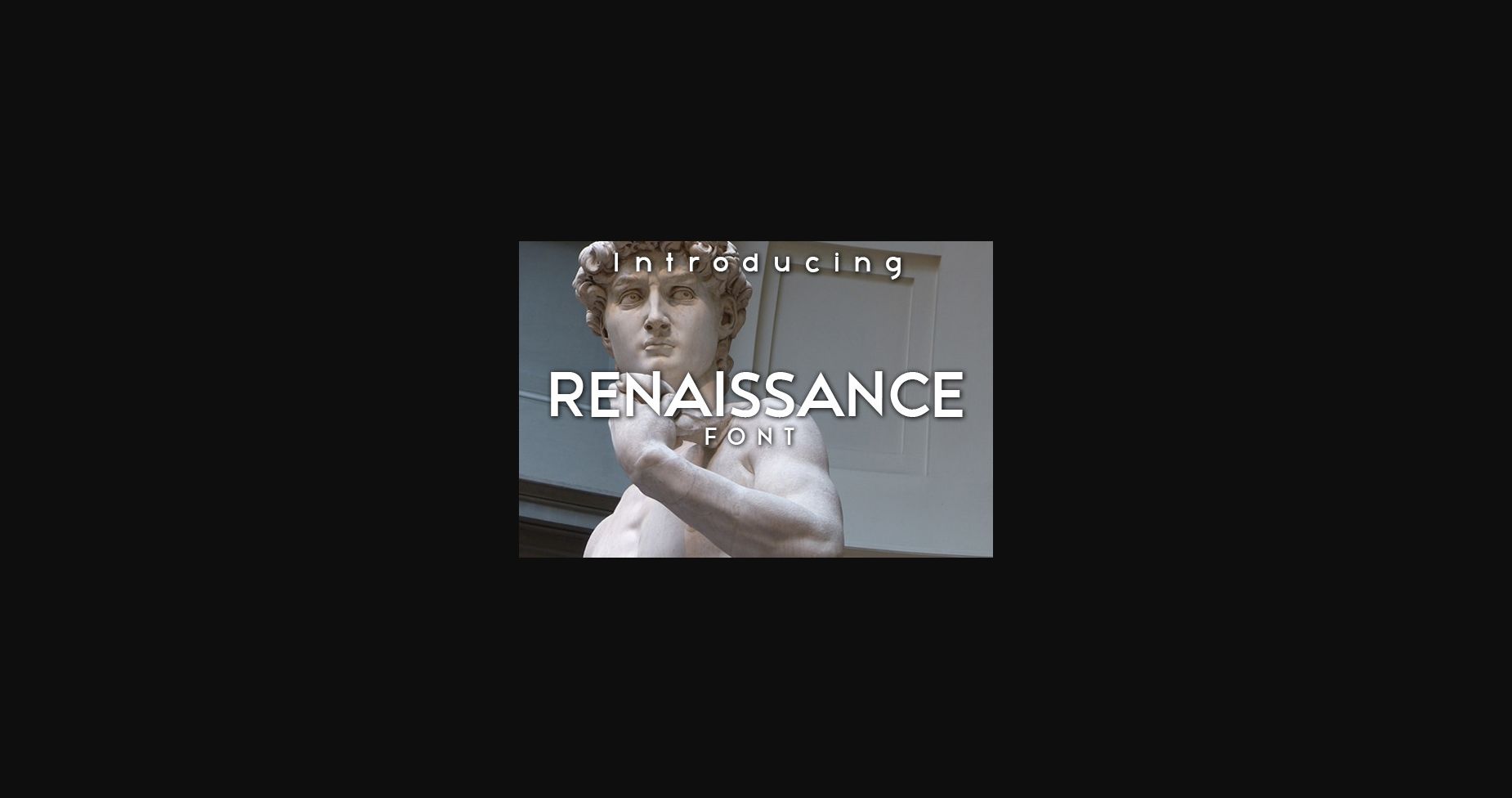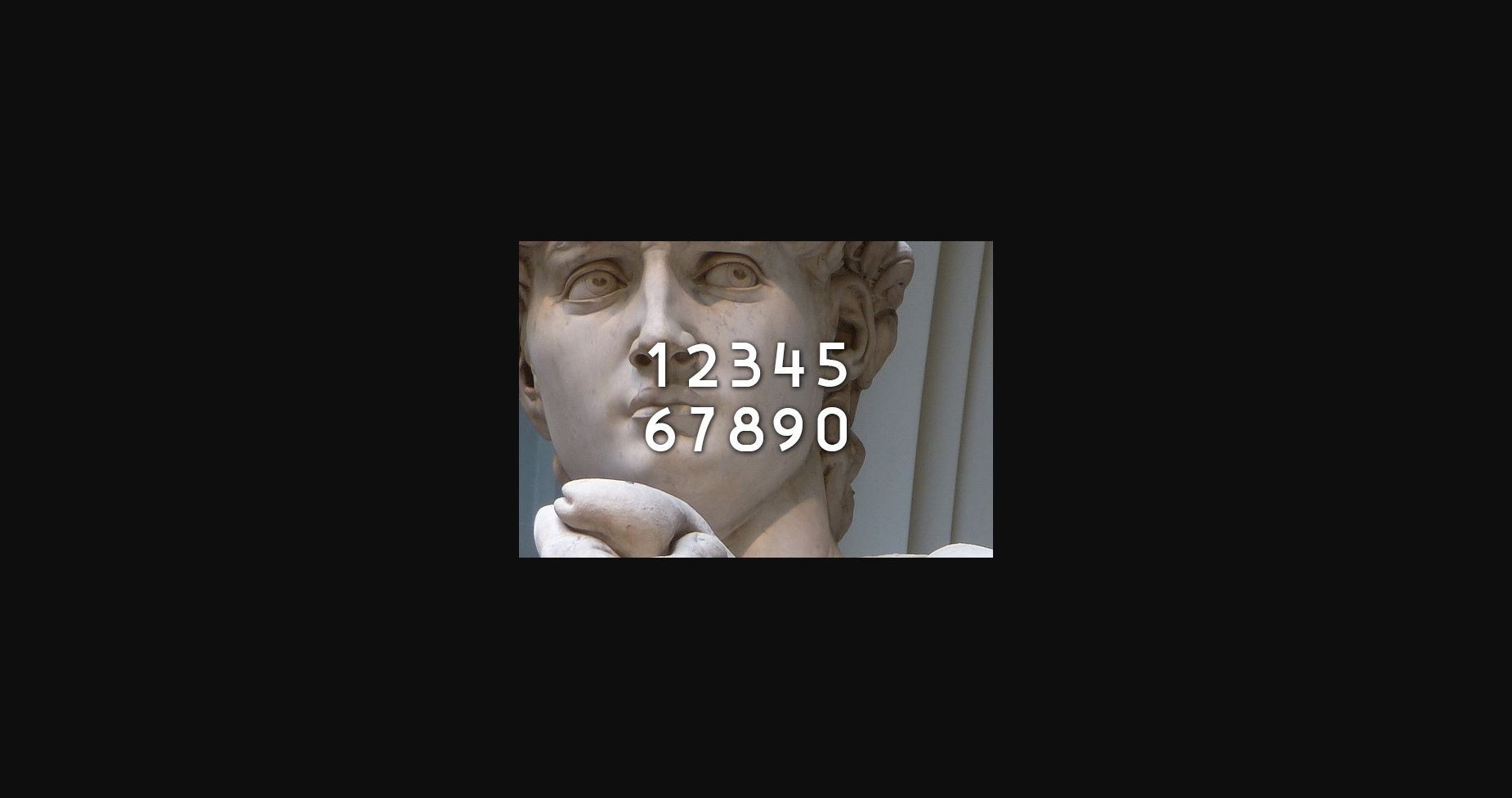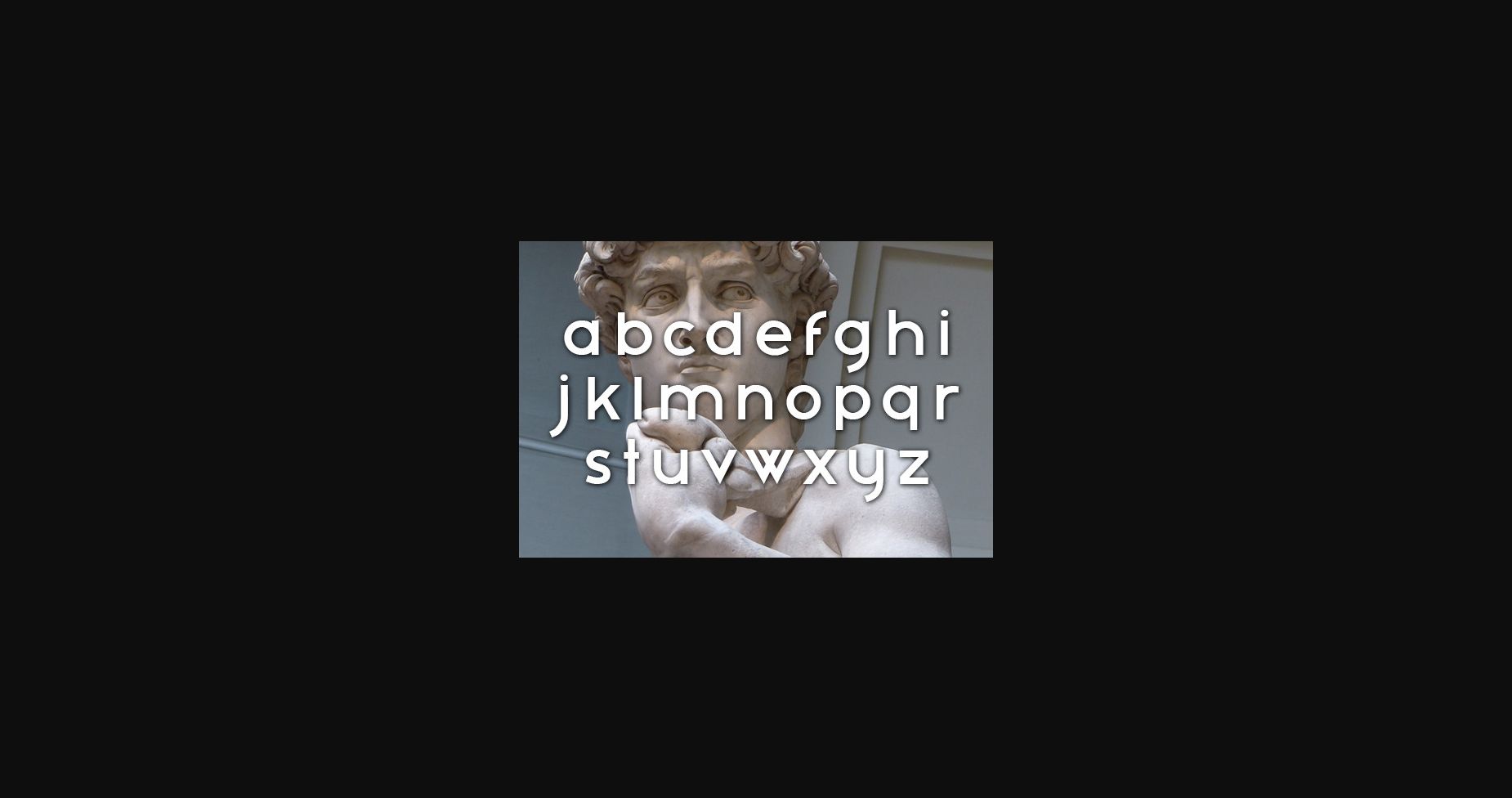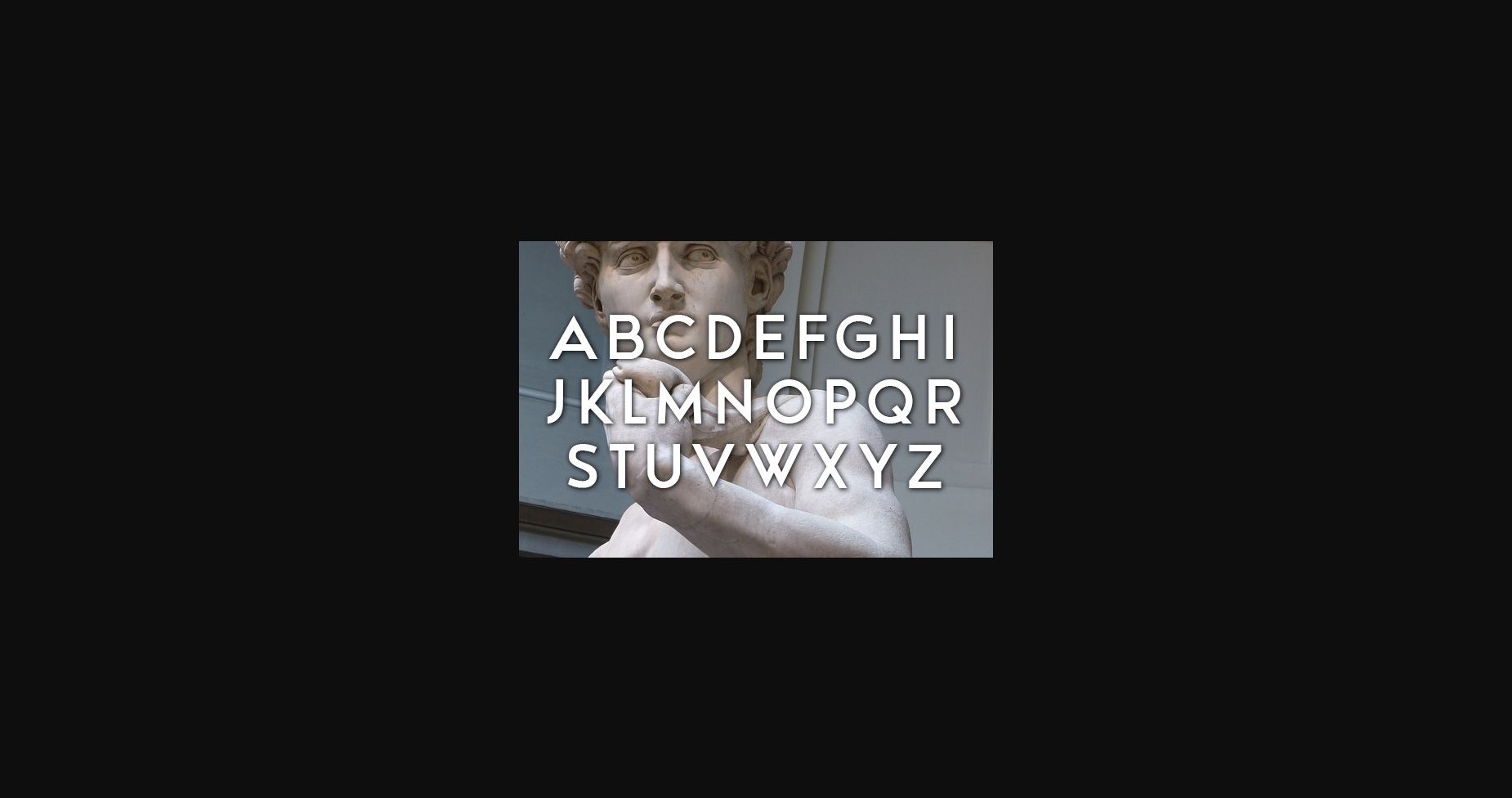
HomeSans Serif FontsRenaissance Font Sans Serif Fonts Renaissance Font FacebookXPinterestWhatsApp 1 of 6 ... Renaissance Font Poster 2... Renaissance Font Poster 3... Renaissance Font Poster 4... Renaissance Font Poster 5... Renaissance Font Poster 6... About Renaissance Font Renaissance is awesome Sans Serif font that will cheer up Your designs. Use this font on posters, flyers, and t-shirts. DOWNLOAD NOW People also explored La Layoung Font Globoys Racing Font Something Font Perva Font Bitter Rose Font Beauty Beth Font Black Stoyem Font Boisterous Font Bastem Font 311 0 TagsRenaissance Font Previous articleSpongerixen FontNext articleFire Flame Grunge Font LEAVE A REPLY Cancel reply Comment: Please enter your comment! Name:* Please enter your name here Email:* You have entered an incorrect email address! Please enter your email address here Website: Save my name, email, and website in this browser for the next time I comment. Personal Use Free Sellena Brush Font Personal Use Free Read more about this font Aliqa Personal Use Free Read more about this font Vembazax Rm Personal Use Free Read more about this font 1980 Portable Personal Use Free Read more about this font BLOG Best Fonts for T-Shirt Design – Top 2025 Picks In 2025, t-shirt design has become more than just fashion—it's a form of self-expression. Whether you're... Top 7 Google Fonts Alternatives for Faster and Privacy-Friendly Web Design (2025) Free Fonts Risk: Why Free Fonts Can Be Dangerous for Designers Modern Sans-Serif Fonts That Brands Love in 2025